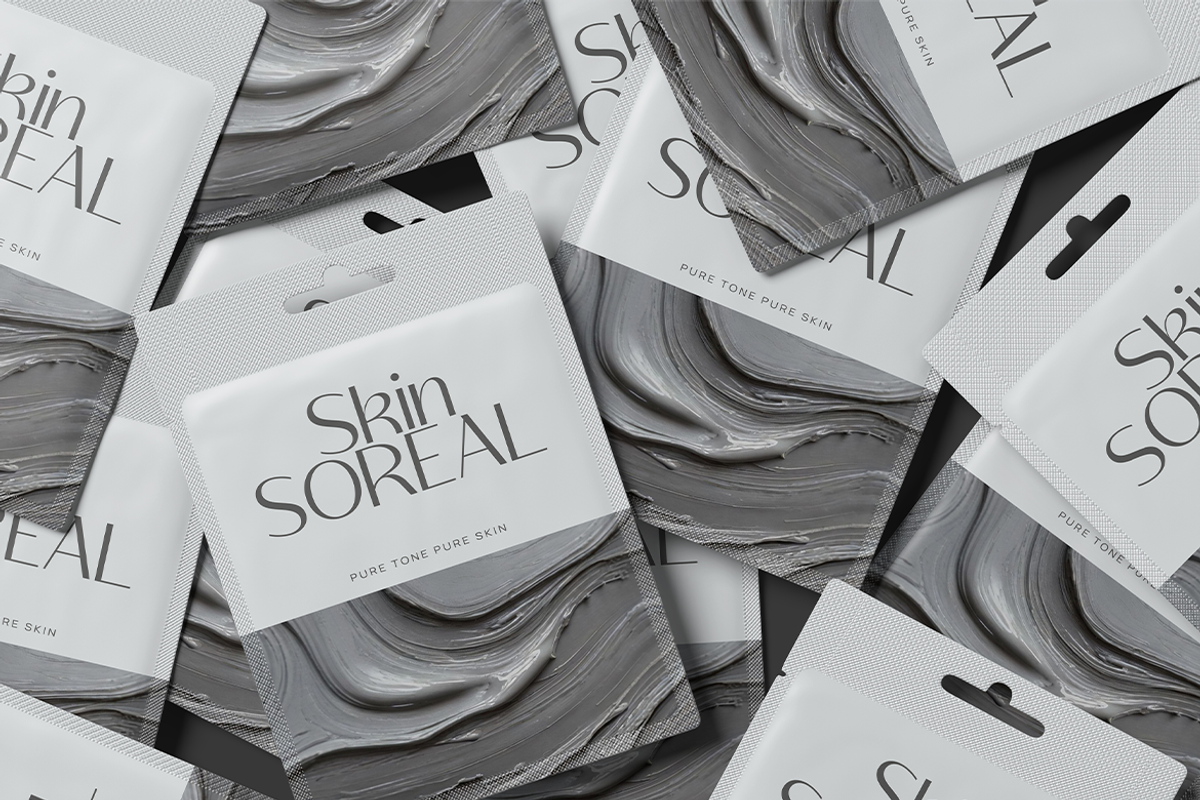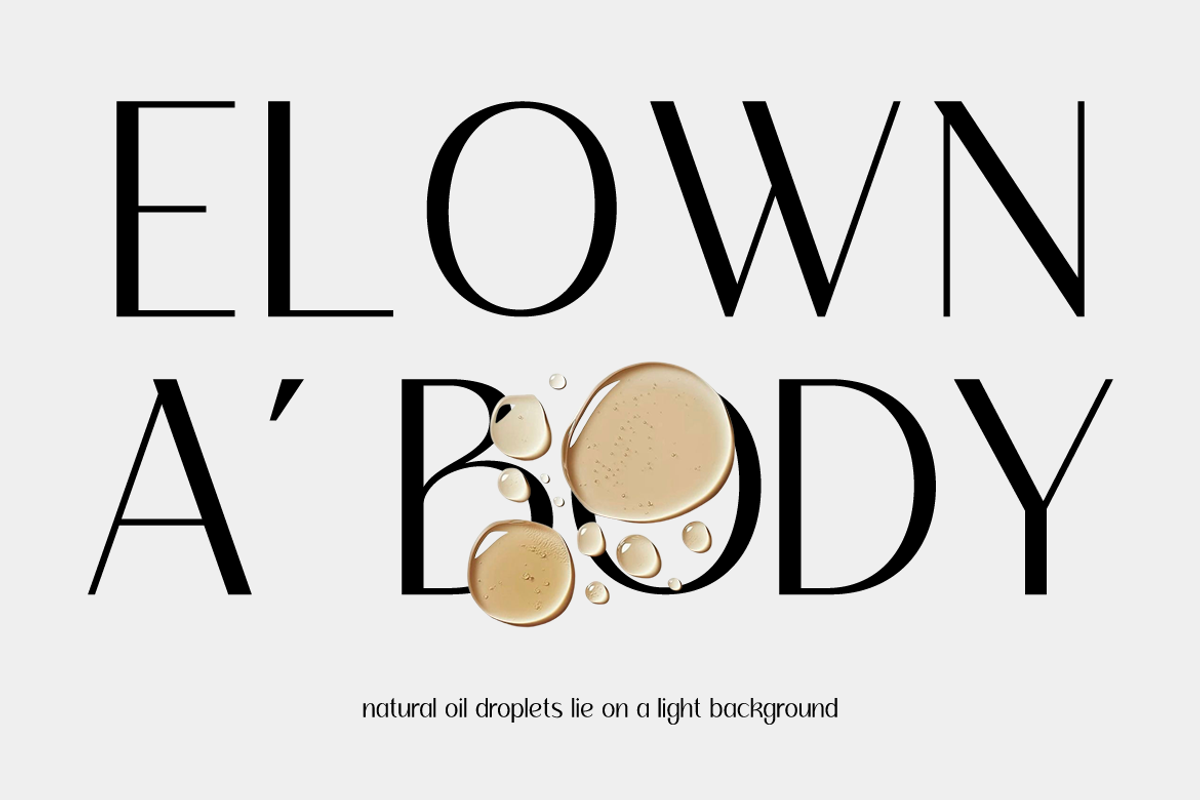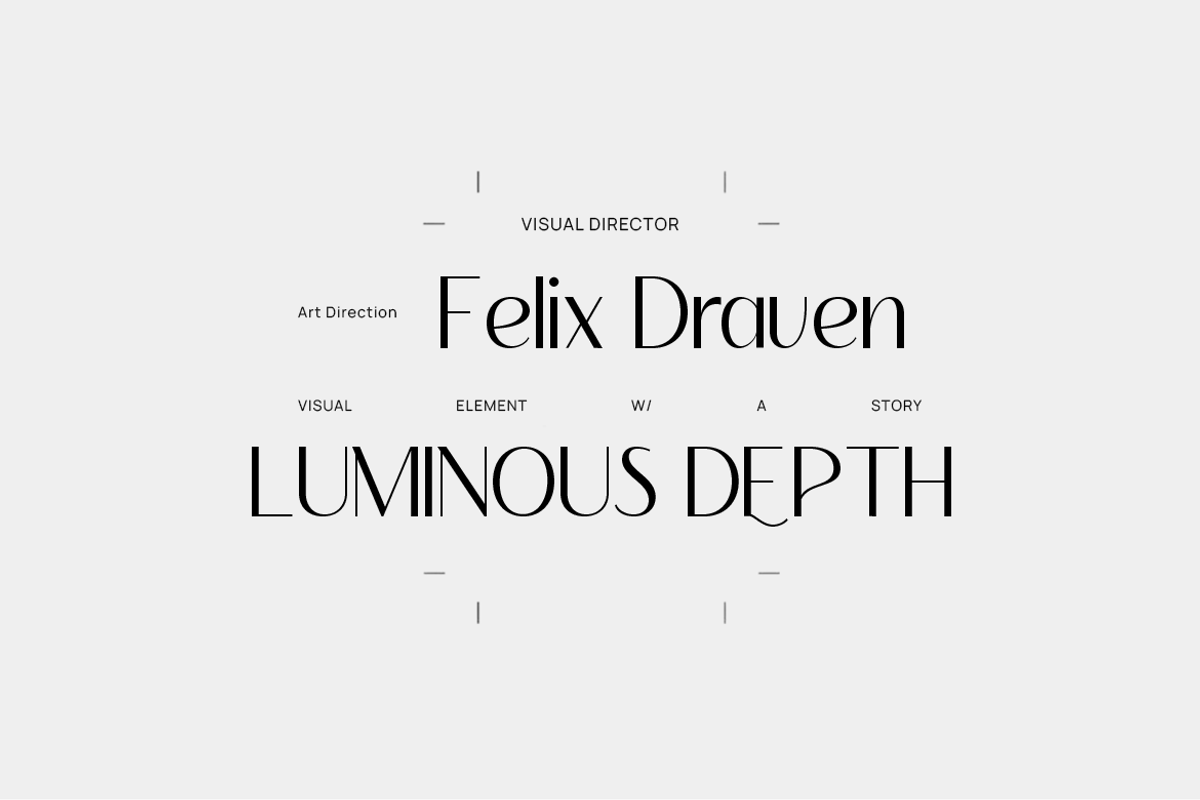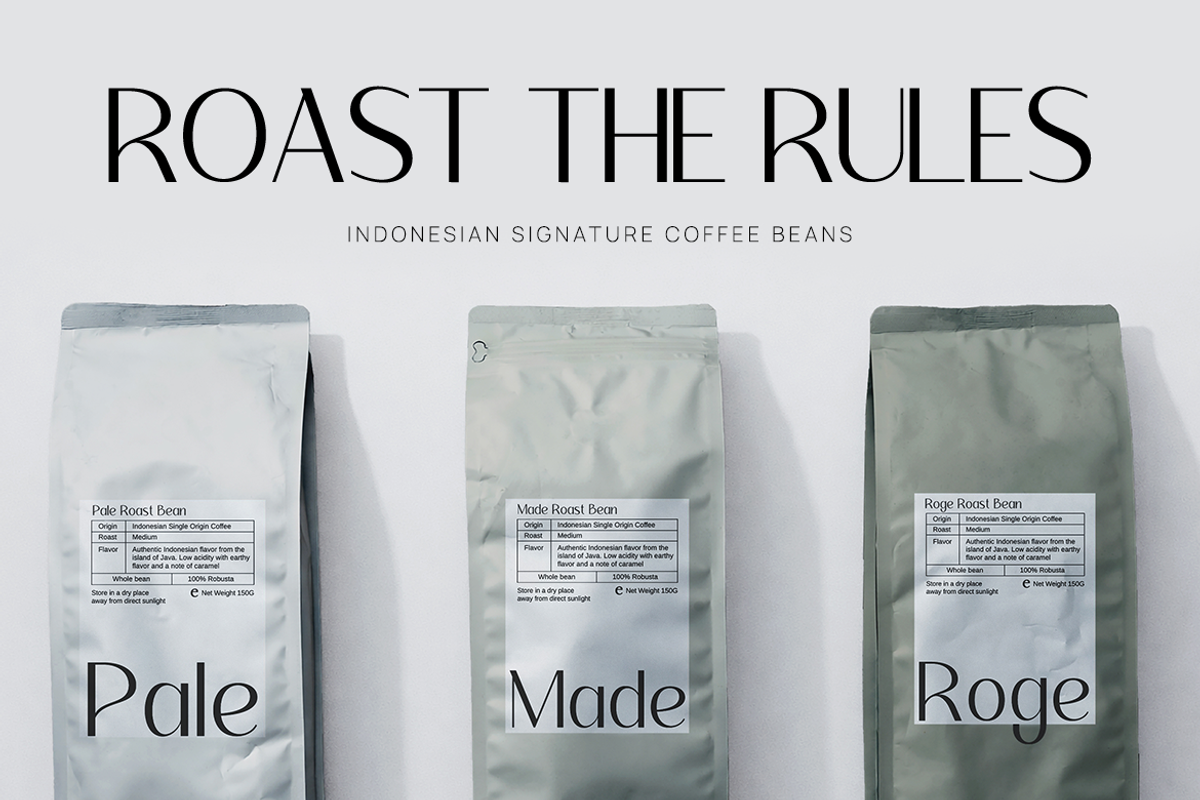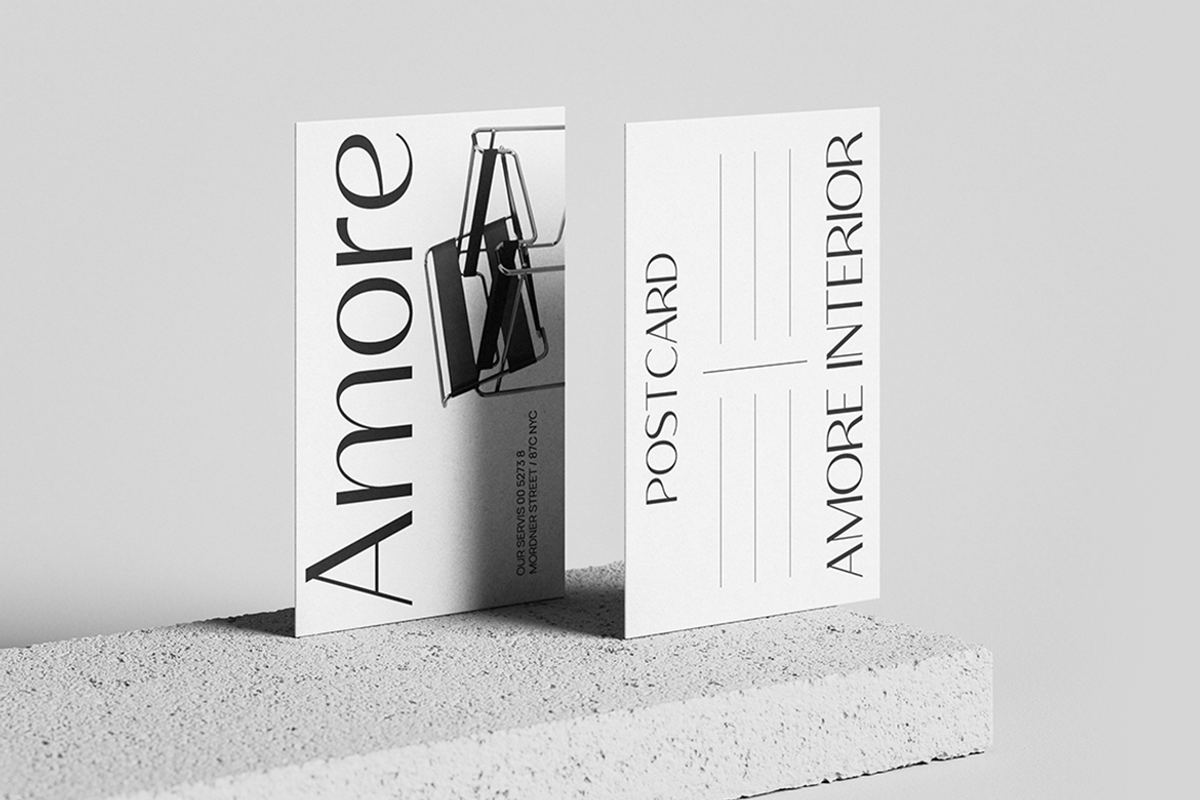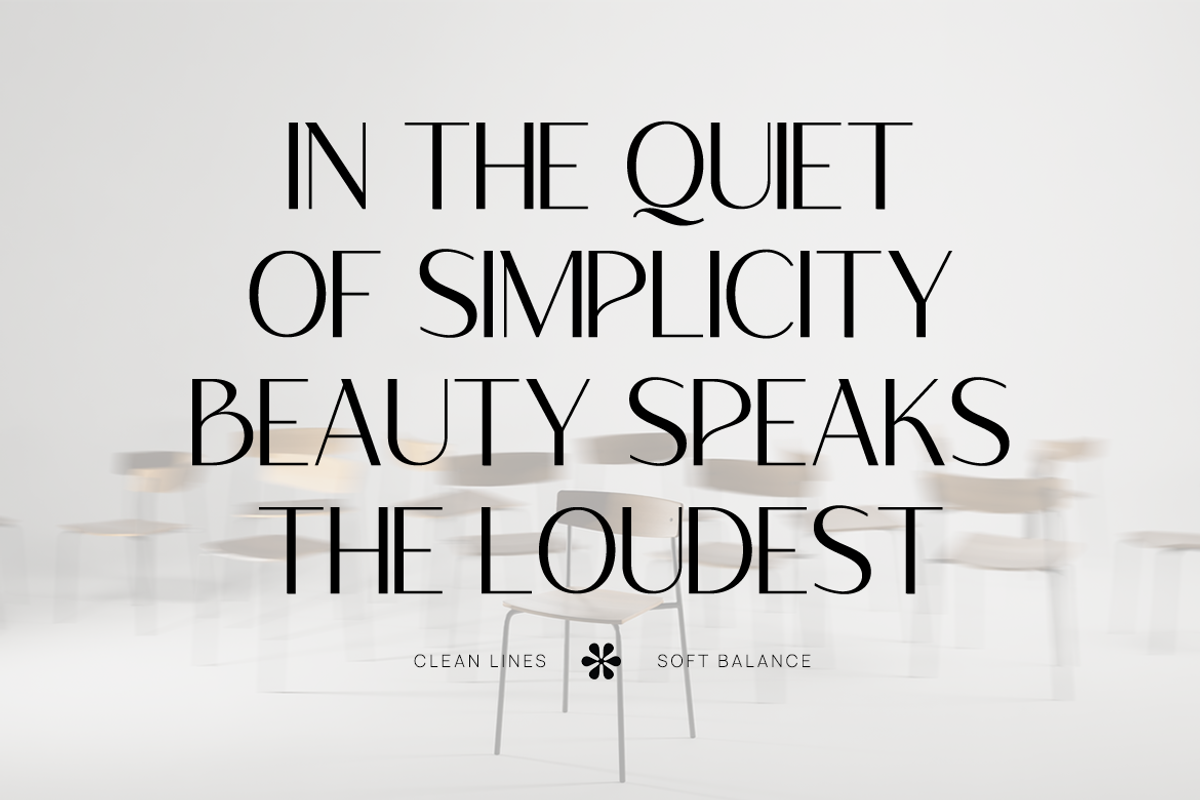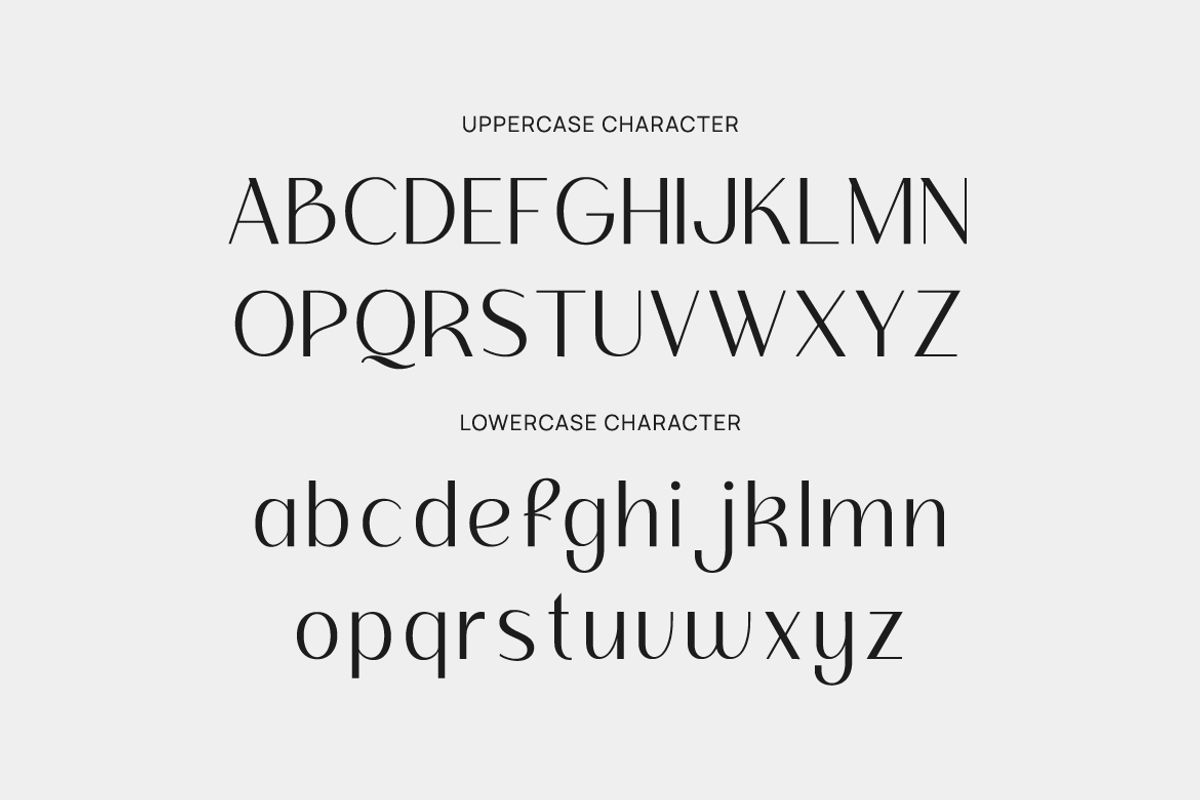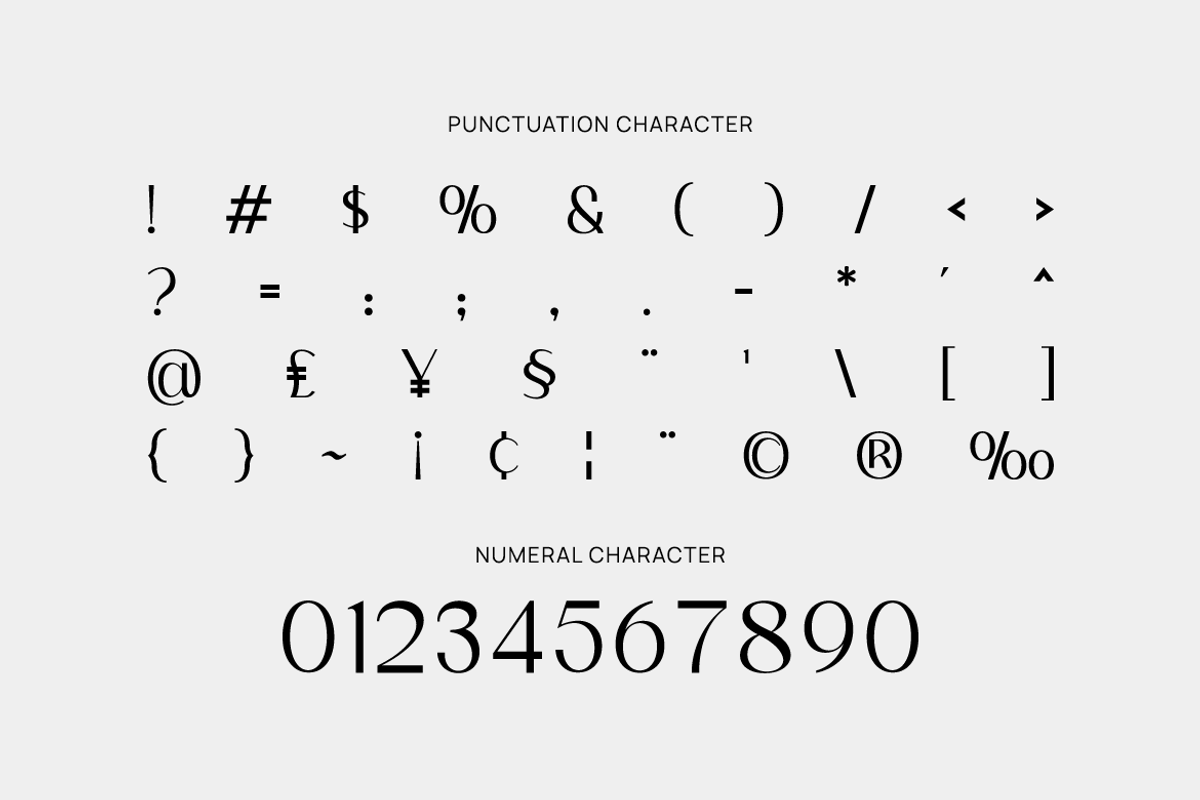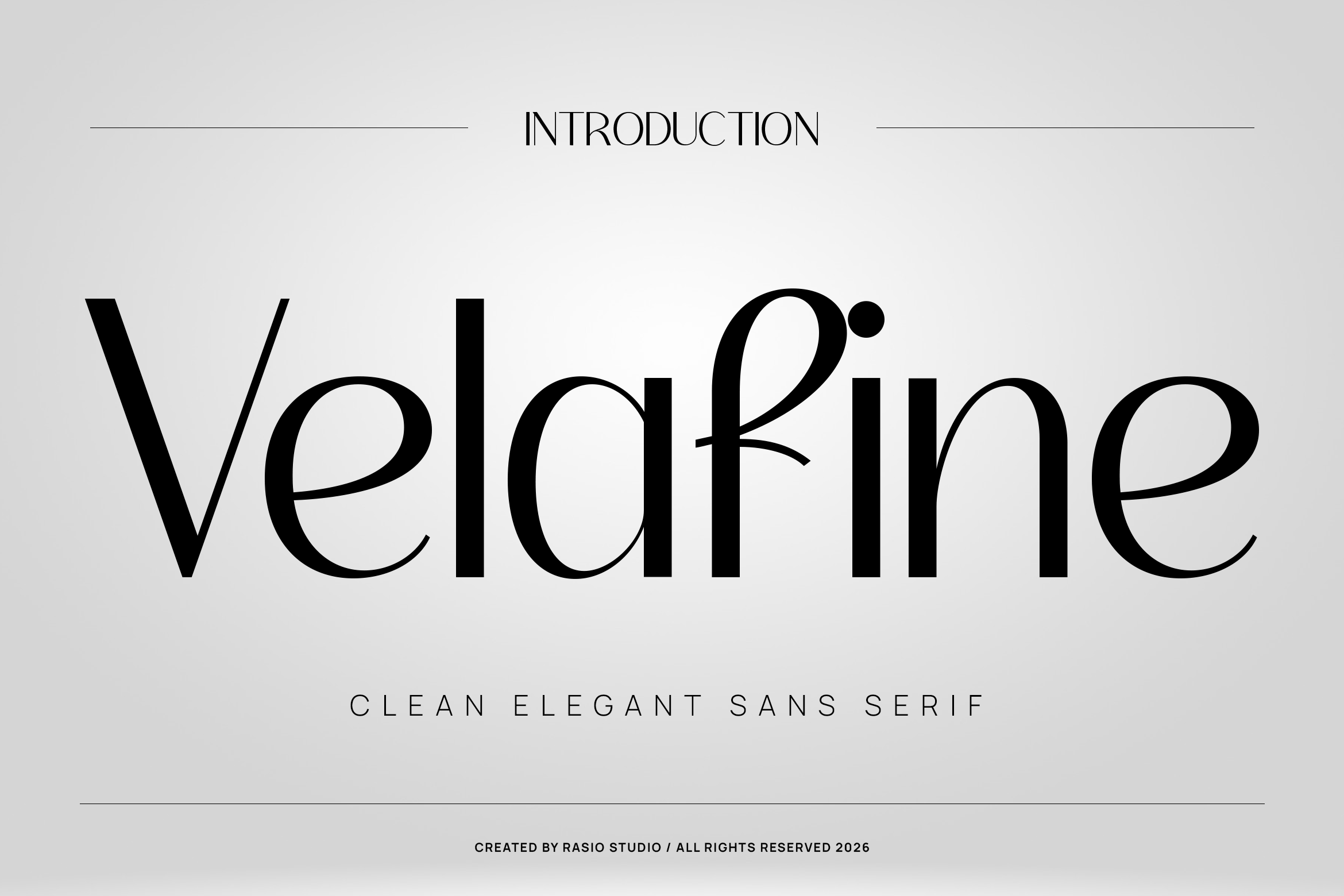
Velafine Clean Sans Serif Font
Velafine showcases a refined elegant sans serif typeface with high contrast strokes, graceful curves, and sophisticated modern letterforms crafted for premium visual identity. The font includes uppercase, lowercase, numerals, punctuation, multilingual support, and stylistic character details suited for editorial and luxury branding compositions. Designed with clean spacing, sharp structure, and polished display aesthetics, it works beautifully across logos, headlines, packaging, and sophisticated layout projects.
Relevance and Use Cases is perfect for luxury branding, editorial layouts, fashion magazines, beauty packaging, logo identities, wedding stationery, boutique branding, premium marketing materials, product labels, social media branding, modern publishing, and sophisticated typography-driven design projects.
- Elegant high-contrast serif design with refined modern proportions
- Delicate hairline strokes balanced by graceful thick-to-thin transitions
- Subtle decorative terminals and distinctive character details for sophistication
- Clean vertical stress with elongated forms for luxurious editorial presence
- Harmonious spacing and polished letterforms for both display and premium branding
- Luxury brand identity systems seeking refined and sophisticated character
- Editorial magazines, fashion lookbooks, and premium book cover layouts
- Beauty packaging, perfume labels, and upscale product branding designs
- Wedding stationery, invitation suites, and romantic event visuals
- Social media templates and marketing materials with elegant editorial aesthetics